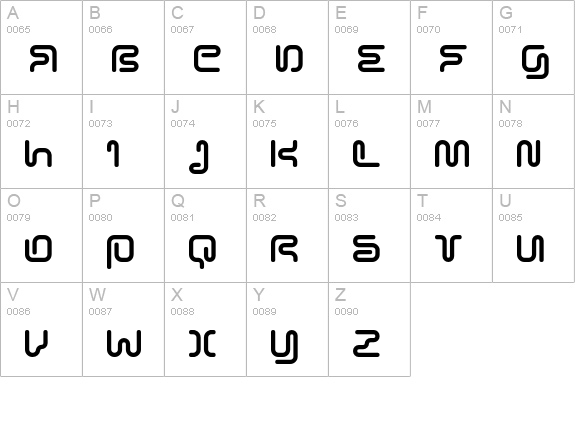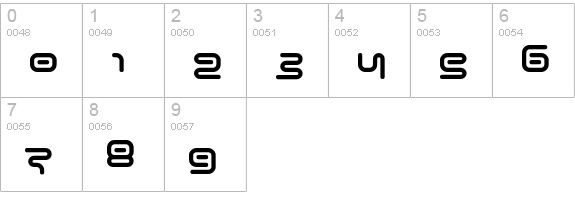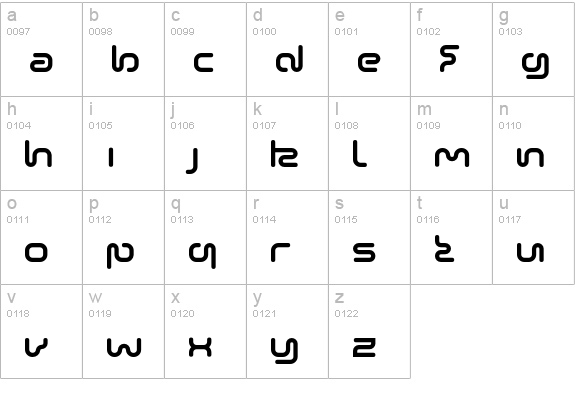
SonicEmpire Font Details
Introducing SonicEmpire, a vibrant and dynamic font that will elevate your design projects to new heights! This font exudes energy, capturing the essence of speed and movement with its sleek and modern design. SonicEmpire is the perfect choice for those looking to make a bold statement. Its sharp lines and edgy curves create a sense of excitement and adventure, making it ideal for branding, logos, posters, and more. But what sets SonicEmpire apart from the rest is that it is not only visually stunning, but also freely available to download! That's right, you can get your hands on this incredible font without spending a dime. It's a fantastic opportunity to add a touch of sophistication and creativity to your work, all at no cost to you. To access this font, simply head over to FontsMarket.com, where you will find SonicEmpire waiting to be downloaded. With just a few clicks, you can bring this powerful font into your design arsenal and unleash its potential. Whether you're a seasoned designer or just starting out, SonicEmpire will undoubtedly become your go-to font for projects that demand attention. Its versatility and captivating style make it a must-have for any creative endeavor. So don't miss out on this incredible opportunity to enhance your designs with SonicEmpire. Download it for free at FontsMarket.com and let your creativity soar to new heights.